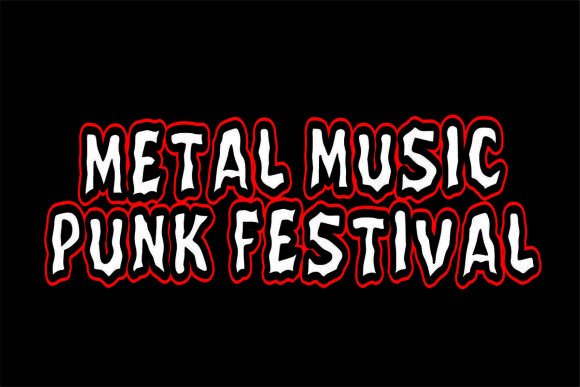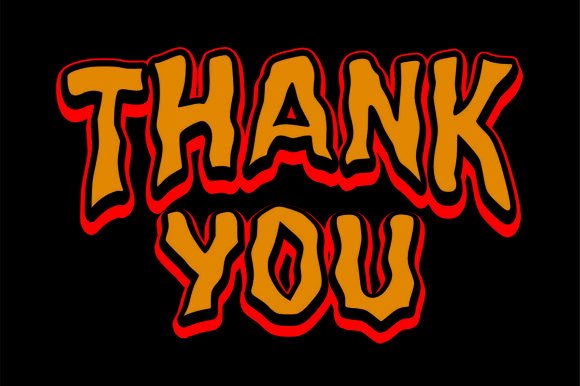
Introduction to Metal Hardcore Font
As a designer, you’ve probably found yourself in the midst of a creative frenzy, searching for the perfect font to give your project that extra oomph. The right font can elevate your design from bland to grand, and that’s exactly what the Metal Hardcore Font is designed to do.
With its Gothic Decorative style and intricate flame details, this font is the ultimate design resource for anyone looking to create a dramatic and energetic look. Whether you’re working on a metal band logo, concert poster, or album cover, the Metal Hardcore Font is sure to make a statement.
Key Features of Metal Hardcore Font
- High-quality font design with a bold, edgy style, perfect for creative projects and music enthusiasts.
- Unique characteristics include a transparent background, allowing for seamless integration with any background image or color.
- Perfect for use in music-related designs, such as album artwork, concert posters, and merchandise, due to its metal-inspired aesthetic.
- Designed to be versatile and easy to use, making it a valuable addition to any design resource or creative project.
- Comes with a comprehensive character set, including a wide range of punctuation marks and special characters, for added functionality.
Honest Review: Metal Hardcore Font
As a designer, I was excited to dive into the world of Metal Hardcore Font, a font designed specifically for those who crave a heavy, industrial aesthetic. I was pleased to discover that this font truly delivers on its promise.
- High-quality design that exudes a sense of grit and intensity
- Transparency options available for seamless integration into creative projects
- Stylistic alternates and ligatures add an extra layer of depth to the font
- Limited character set may make it less suitable for extensive writing projects
- Font size and weight may need to be adjusted to achieve optimal readability
Overall, I’m impressed with Metal Hardcore Font’s ability to bring a unique, high-quality design to the table. While it may not be perfect for every project, its strengths make it an excellent addition to any designer’s toolkit. Whether you’re working on a creative project or simply need a bold, eye-catching font, Metal Hardcore Font is definitely worth a look.
How to Use Metal Hardcore Font
The Metal Hardcore Font is a high-quality, bold font perfect for creative projects that require an edgy and intense look. With a transparent background, this font can be easily integrated into various design elements.
Tips for Getting the Most Out of Metal Hardcore Font
Use the font in combination with other design elements, such as bold lines and bright colors, to create a striking visual effect.
The Metal Hardcore Font is perfect for music festival posters, concert flyers, and other creative projects that require an edgy and intense look.